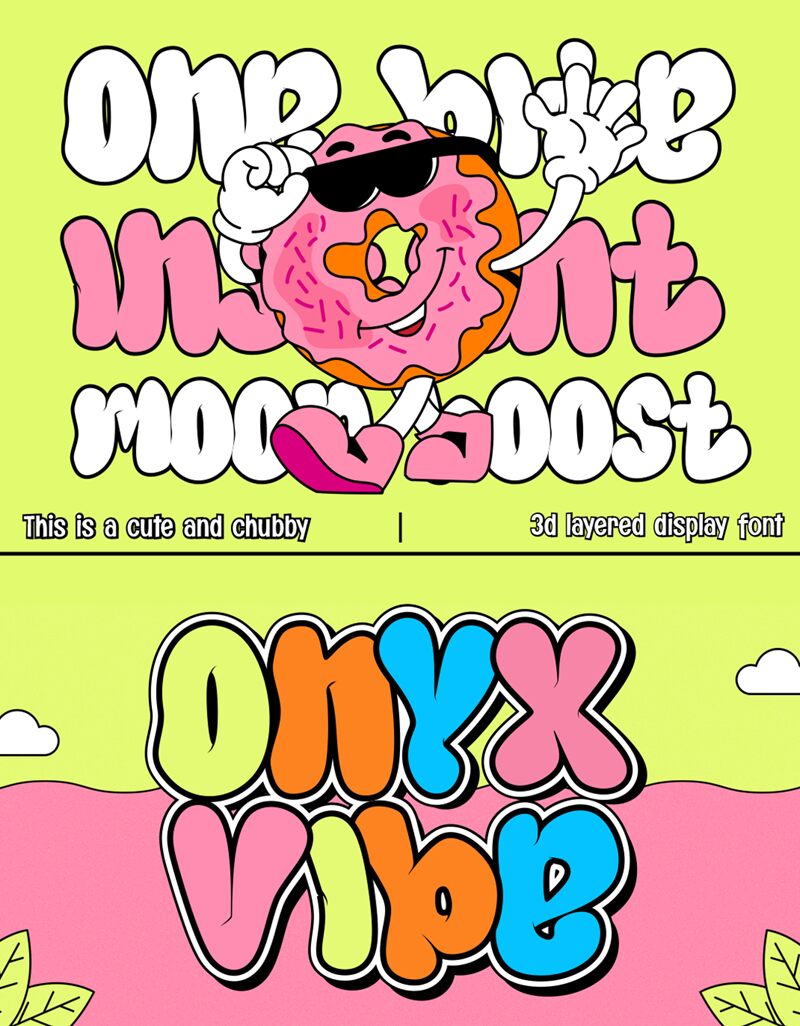
Onyx Vibe font family, designed by Cikareotype Studio, is a free font for personal use that features 3 fun, cartoonish font styles. Think of all the popular graffiti-covered buildings in major countries all over the world; they’re simply masterpieces. And since they’re built on different levels, this font can replicate the fun they hold with its variety that brings vibes you don’t frequently find and youthful energy to every branding project, poster, or artwork design.
Public signs performed by government entities aren’t the right spot for Onyx Vibe, but everything else is. It can be used for advertisements, menus, title logos for coffee shops and burger joints, etc. Fluent in multiple languages, this free-spirited font can go international with online platforms, logotypes, and videos, or it can present comics and mangas or decorate their covers.
The font is fun with general designs, but the surprises in its characters, alongside its glyphs, are endless. They’ll be especially favored on posters, flyers, and futuristic online magazine designs. Try it in your projects and share online artworks designed for personal usage as the font is 100% free for personal usage only.